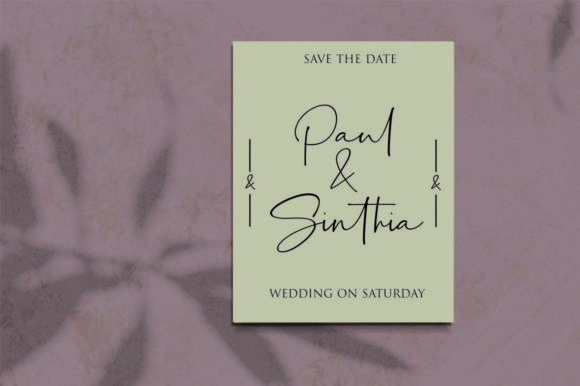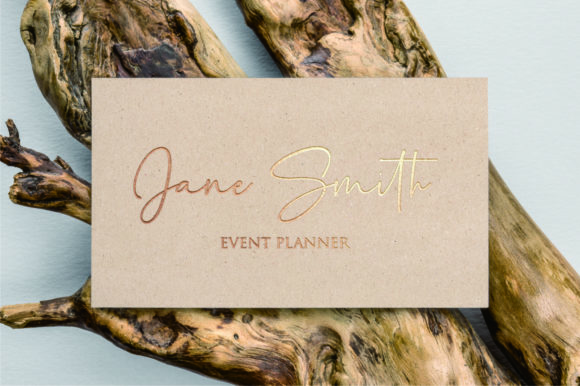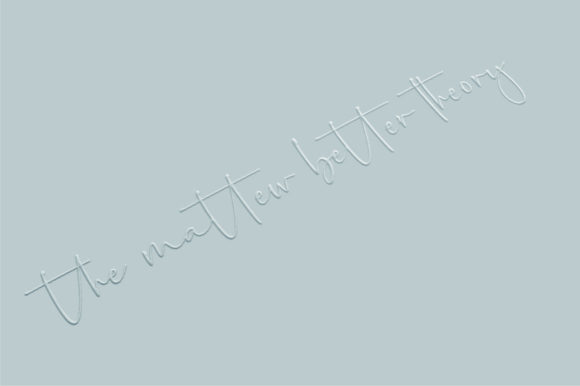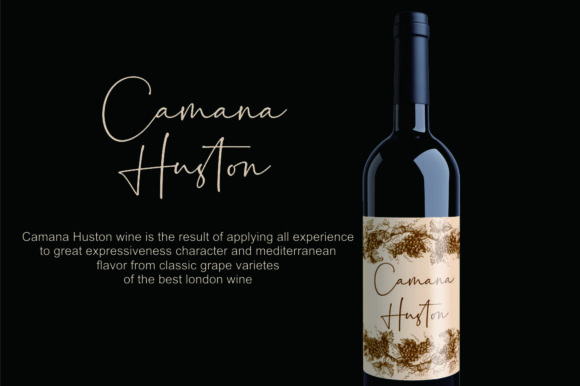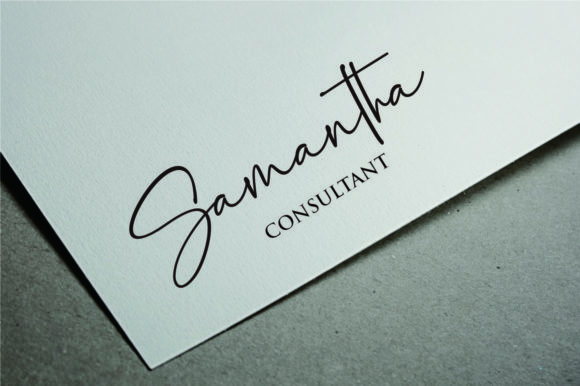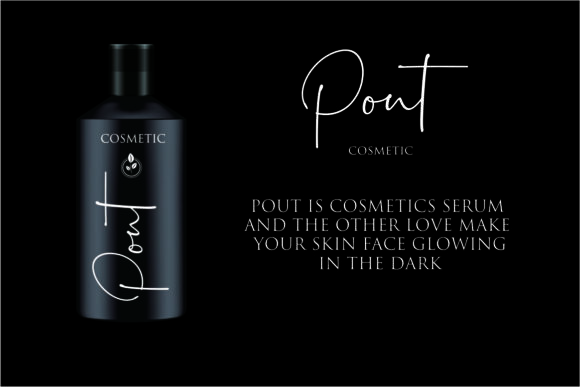
Introduction to Palmaton Font
As a crafter, there’s nothing quite like the thrill of bringing a creative idea to life. It’s that moment of inspiration, when everything comes together, and you can’t wait to see your project take shape. For me, it was a sunny afternoon, surrounded by colorful papers, glue, and a dash of imagination. And then, I stumbled upon the perfect font to elevate my design: Palmaton Font.
This charming handwritten font is more than just a pretty face – it’s a game-changer for designers and crafters alike. With its cool and casual style, Palmaton Font is the perfect addition to any creative project, whether you’re working on a free download or a high-quality design resource. And with its transparent background, you can easily layer your design without worrying about unwanted backgrounds.
As a valuable design resource, Palmaton Font offers endless possibilities for those looking to add a personal touch to their work. So, what are you waiting for? Dive into the world of Palmaton Font and discover the magic that happens when creativity meets this charming font.
Palmaton Font
- Features a transparent background for seamless integration
- Includes a range of font sizes and resolutions for optimal display
- Unique, handcrafted design elements that add a personal touch
- Perfect for digital and print applications, including logos, graphics, and more
- Supports a wide range of languages for international use
Honest Review: Palmaton Font
I recently had the chance to work with the Palmaton Font, and I must say it’s been a game-changer for my design projects. This font is a great addition to any designer’s toolkit, offering a high-quality design resource that’s perfect for creative projects.
- ✨ High-quality design: The Palmaton Font is crisp and clean, making it perfect for both digital and print designs.
- ✨ Versatile: This font is great for a wide range of creative projects, from logos and branding to web design and more.
- ✨ Transparent background: The transparent background option is a great feature, allowing for seamless integration with other design elements.
- ⚠️ Limited font variations: While the Palmaton Font is high-quality, it’s available in a limited number of variations, which may not be suitable for all design projects.
- ⚠️ Not suitable for complex typography: Due to its simplicity, this font may not be the best choice for complex typography or designs that require a lot of customization.
Overall, I’m impressed with the Palmaton Font and would highly recommend it to designers looking for a high-quality, versatile font for their creative projects.